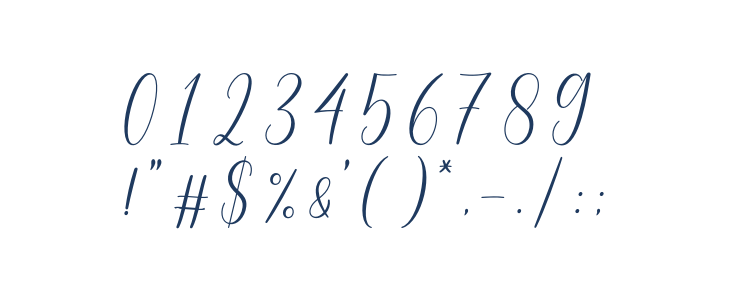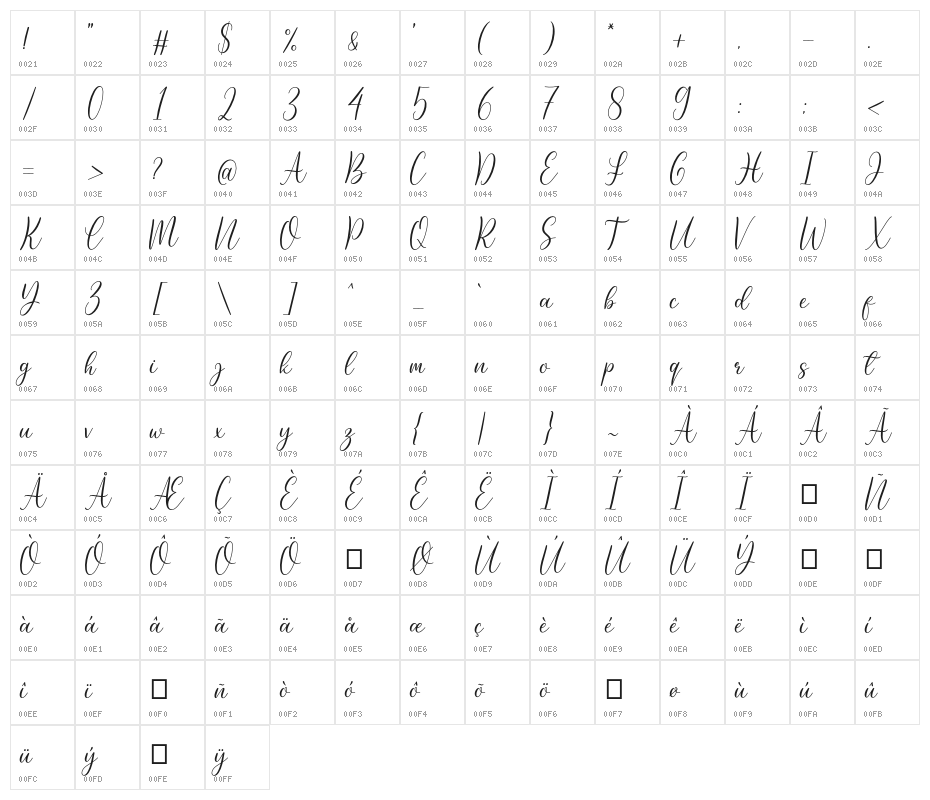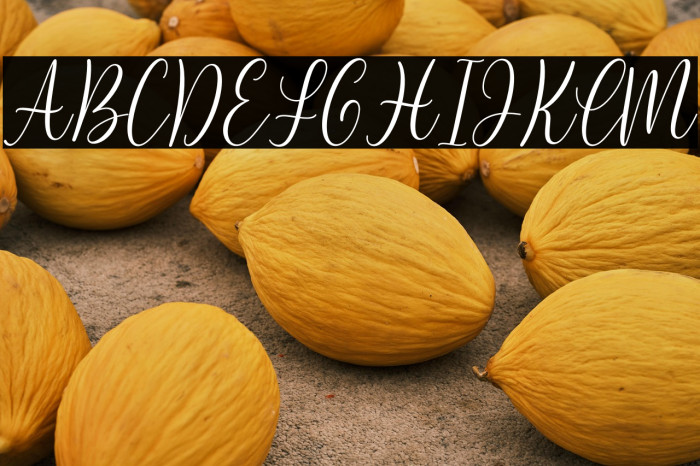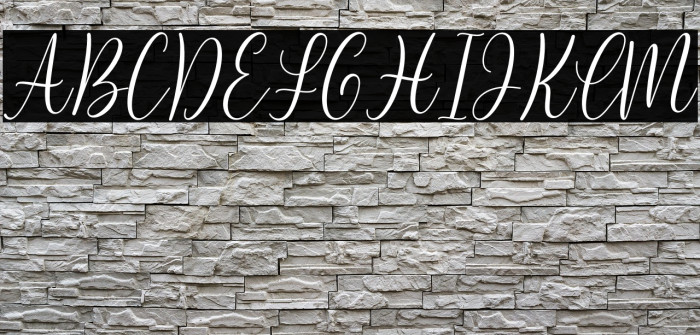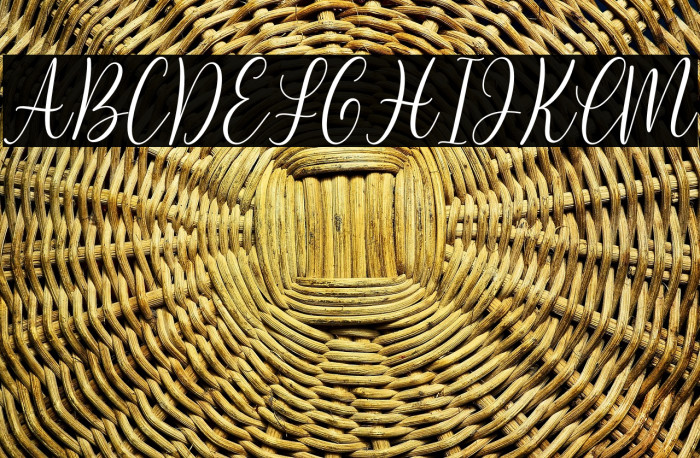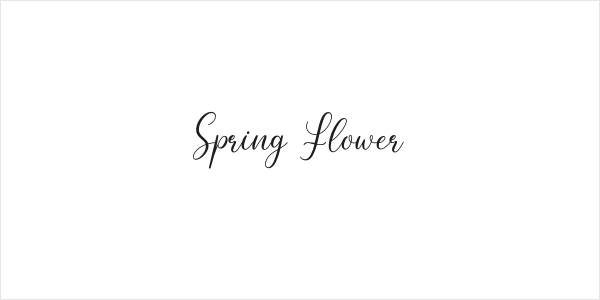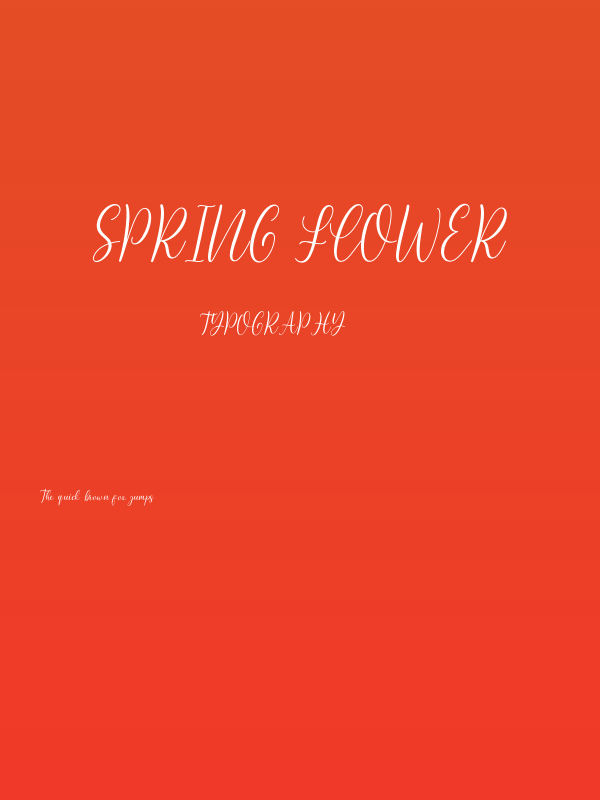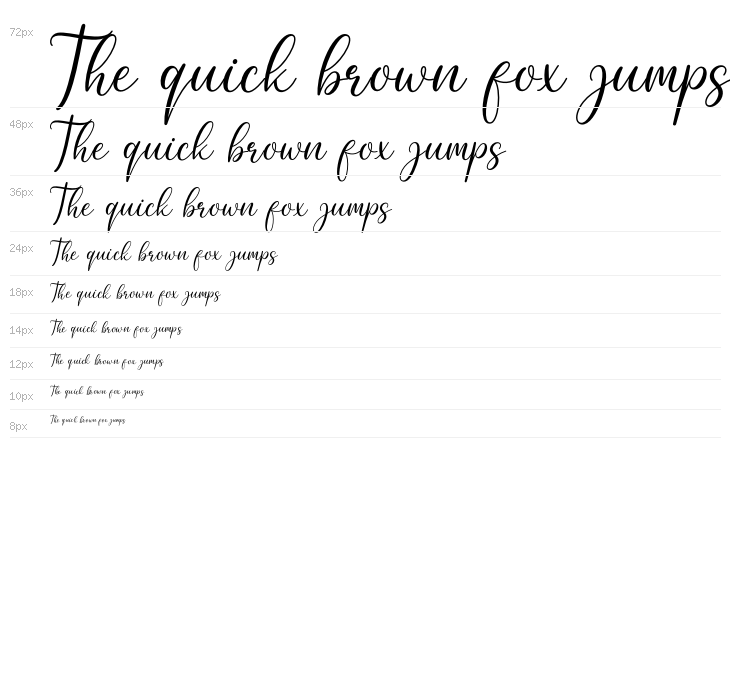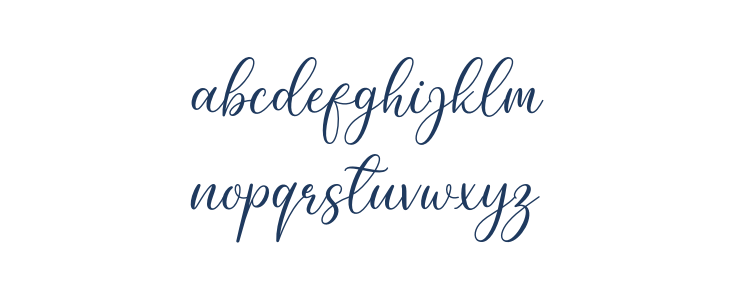
Spring Flower Font
Spring Flower Description
This font features a graceful and flowing script style, reminiscent of elegant handwriting. The characters are connected, with smooth curves and a slight slant, giving it a dynamic and lively appearance. The uppercase letters are tall and slender, while the lowercase letters maintain a consistent flow, enhancing readability. The numbers and special characters follow the same fluid design, ensuring a cohesive look across all text. This font exudes a sense of sophistication and charm, making it suitable for various creative applications.